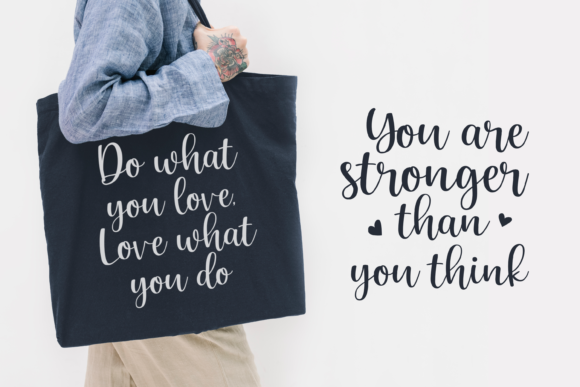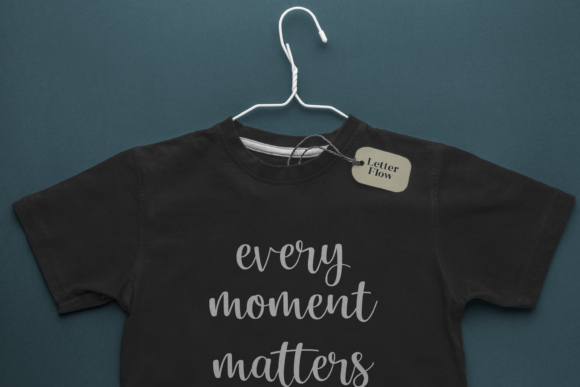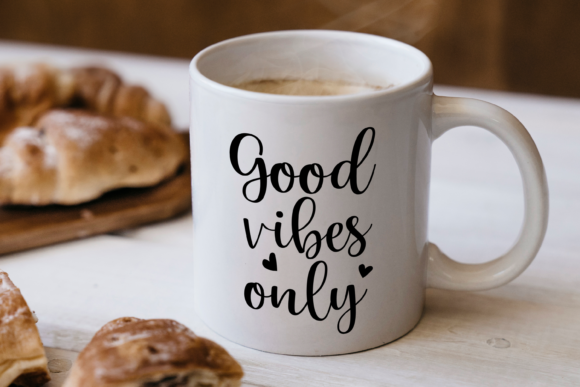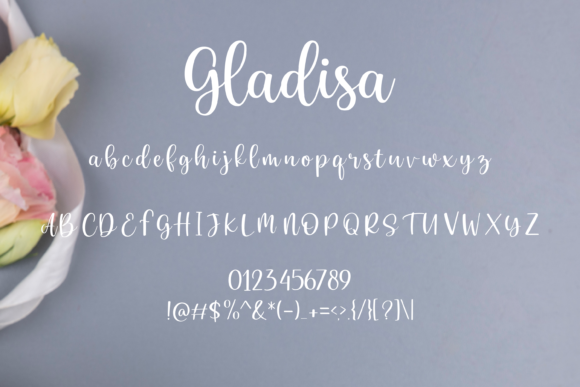
Introducing Gladisa Font: Elevate Your Designs with Elegance and Sophistication
In the world of typography, fonts play a crucial role in conveying the tone and personality of a design. For designers and crafters seeking a script font that exudes class, elegance, and modernity, Gladisa Font is an exceptional choice. This beautiful and refined script font is perfect for a wide range of applications, from logos and branding to invitations, stationery, wedding designs, social media posts, and more.
The Characteristics of Gladisa Font
Gladisa Font boasts a unique blend of classic and contemporary elements, making it an versatile and stylish addition to any design project. Its key features include:
- Elegant and Refined Appearance: Gladisa’s script style is characterized by flowing lines, subtle curves, and a sophisticated overall look that adds a touch of luxury to any design.
- Classy and Modern: This font seamlessly blends traditional elegance with a modern twist, making it suitable for a wide range of design applications, from traditional wedding invitations to modern branding and advertising.
- High Versatility: Gladisa Font can be used for various design projects, including logos, branding, invitations, stationery, wedding designs, social media posts, and more.
Why Choose Gladisa Font?
With so many fonts available, why should designers and crafters choose Gladisa Font for their projects? Here are a few compelling reasons:
- Stand Out from the Crowd: Gladisa’s unique and elegant design ensures that your projects will stand out from the competition, capturing the attention of your audience and leaving a lasting impression.
- Easy to Read and Versatile: Despite its elegant appearance, Gladisa Font remains highly legible, making it suitable for both digital and print applications.
- Time-Saving: With Gladisa Font, designers can save time and effort, as this single font can be used across multiple projects, reducing the need for multiple font choices.
Design Applications for Gladisa Font
Gladisa Font’s versatility makes it an excellent choice for a wide range of design applications, including:
- Logos and Branding: Create a lasting impression with a custom logo or brand identity that exudes elegance and sophistication.
- Invitations and Stationery: Add a touch of luxury to your invitations, greeting cards, and stationery with Gladisa’s refined script style.
- Wedding Designs: Make your wedding designs truly unforgettable with Gladisa Font, perfect for wedding invitations, programs, and more.
- Social Media Posts: Elevate your social media presence with eye-catching posts and graphics featuring Gladisa Font.
Tips for Using Gladisa Font Effectively
To get the most out of Gladisa Font, consider the following tips:
- Pair with Complementary Fonts: Combine Gladisa Font with complementary fonts to create visual interest and hierarchy in your designs.
- Experiment with Colors and Textures: Take advantage of Gladisa’s versatility by experimenting with different colors, textures, and backgrounds to add depth and dimension to your designs.
- Pay Attention to Kerning and Spacing: Ensure that your text is evenly spaced and kerned to maintain the elegance and sophistication of Gladisa Font.
In conclusion, Gladisa Font is a beautiful and refined script font that offers a classy, elegant, and modern look, perfect for designers and crafters seeking to elevate their designs. With its versatility, legibility, and timeless appeal, Gladisa Font is an excellent addition to any design project. Whether you’re creating logos, branding, invitations, stationery, wedding designs, or social media posts, Gladisa Font is sure to make a lasting impression.